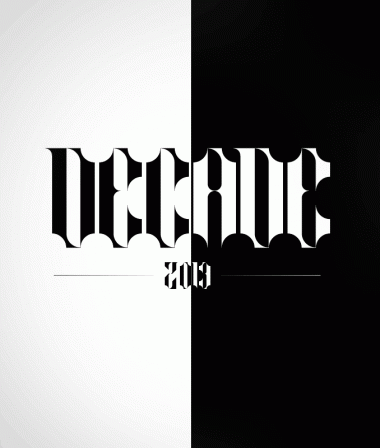
• Looking for a different blackletter? Decade is your font. Each character of this broken, inky textura is a new fashion statement. It counts with Caps, lowercase and numbers. Not finished yet (still working on the rest of the set and accents) but fully usable for english speakers. Have fun! P.S: Any Idea for that uppercase T?
Very distinctive. 10/10
I absolutely love this. :)